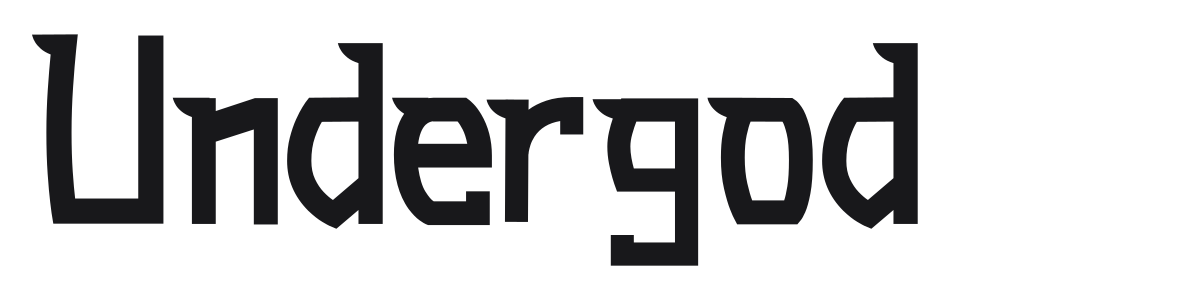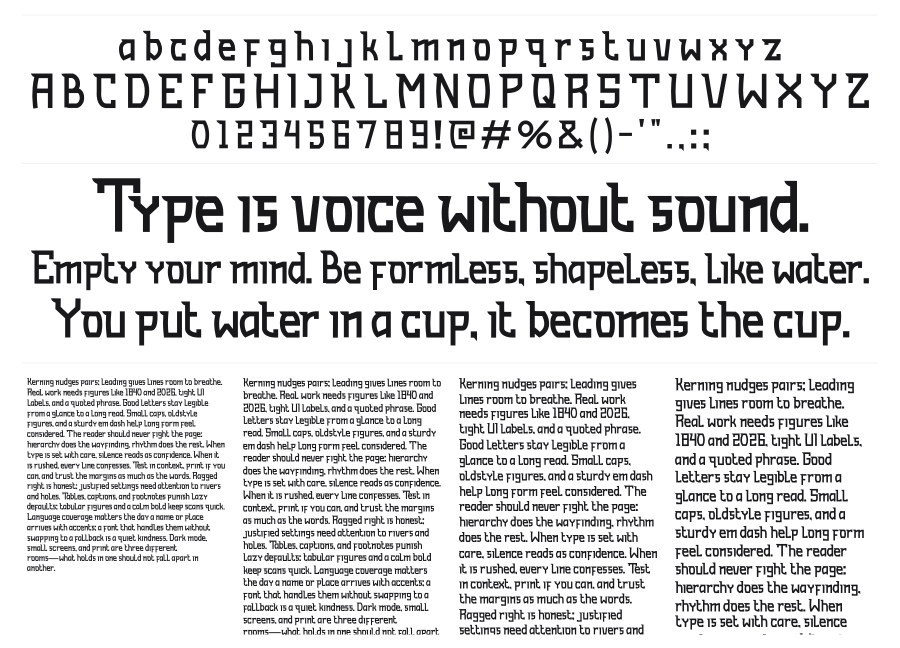
Undergod
Undergod is a heavy, wide display sans built from blocky forms punctuated by sharp angular notches and cutouts at stroke joins and terminals. The result sits somewhere between tribal carving and Art Nouveau ornamentation, with a distinctly underground energy. It works at large sizes where the details can breathe and the dark character of the design comes through.